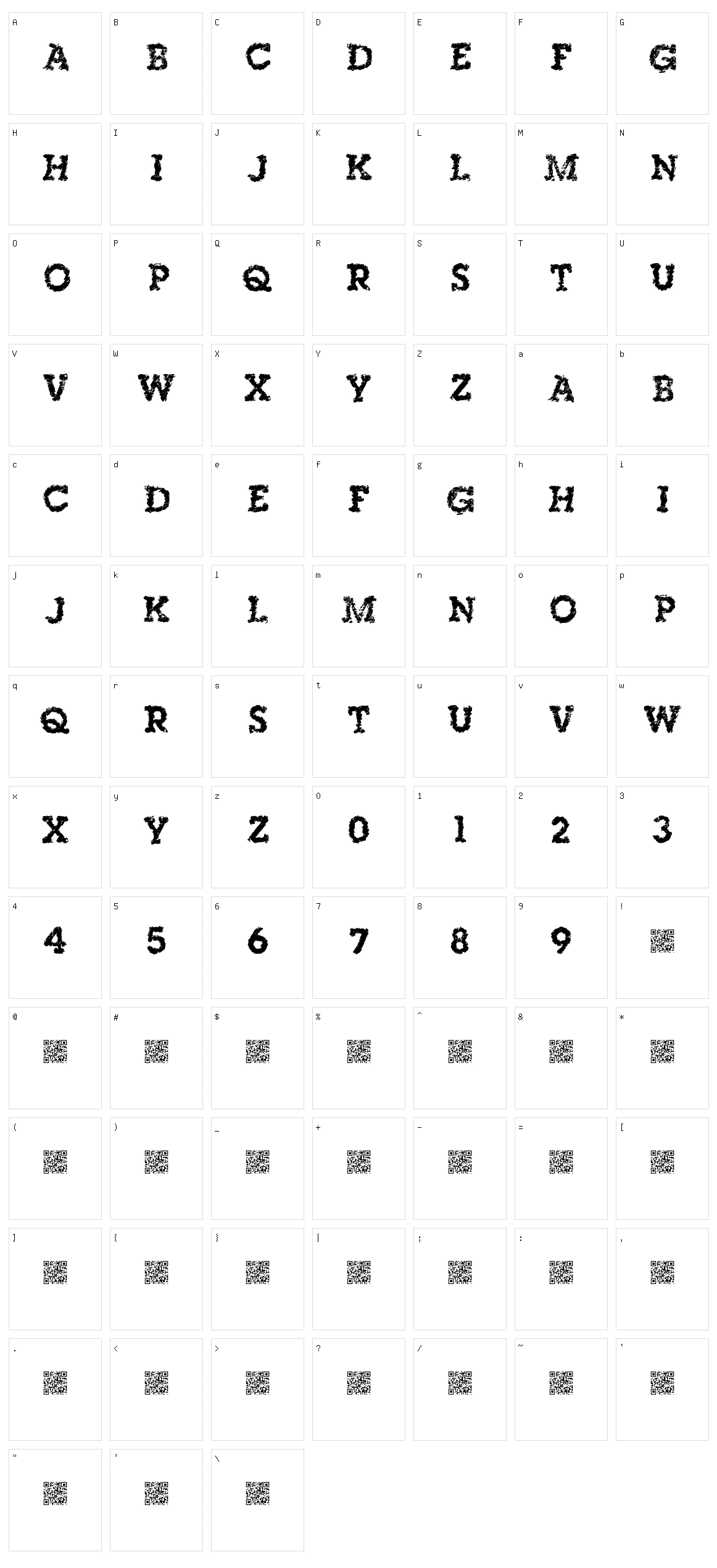
The free font Single Origin is carefully designed by Xerographer Fonts, showcasing a thoughtful balance of creativity and usability and falls under the Eroded font style. When you download the ZIP file, it contains only 161.73 KB of font files, making it lightweight and quick to download. Please review the license details below to understand permitted usage and distribution rights. If license information is not available, we recommend using this font for personal projects only or contacting the author directly for commercial usage permissions.